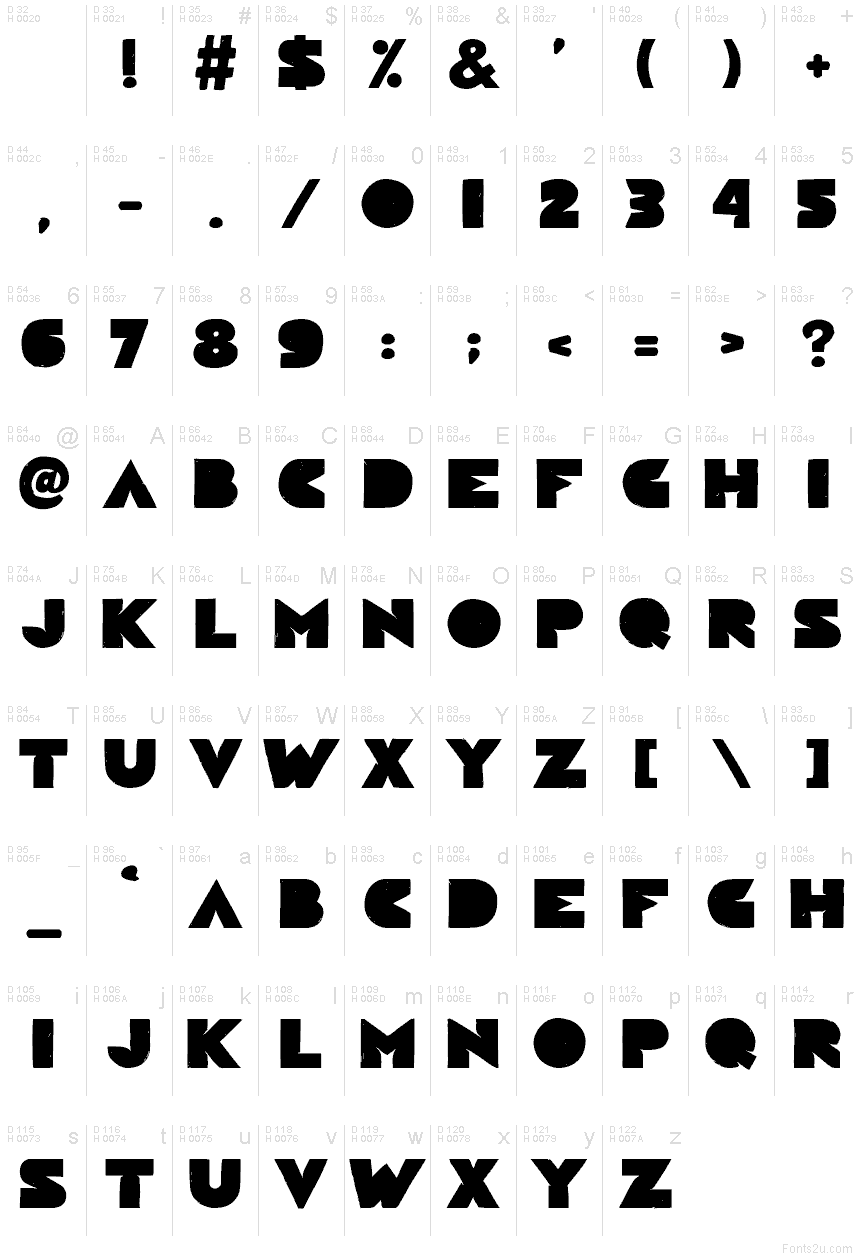
The Ink Prophecy
The Ink Prophecy font by BlackFridayFont FMF is a free ultra-bold geometric display font. Built from chunky, modular blocks with crisp, chiseled cuts and round, inky counters, it hits that rare sweet spot between brutal weight and sculpted rhythm. Tight spacing packs a punch, while the squared silhouettes feel industrial yet ritual-like letterforms stamped into metal.
Using The Ink Prophecy, headlines snap into place and stay readable at a glance. It shines on posters, game titles, sci‑fi or horror key art, album covers, esports logos, and bold packaging. For balance, pair this free font with a light, neutral grotesk for body copy, or add a hint of tracking when setting all caps at large sizes.